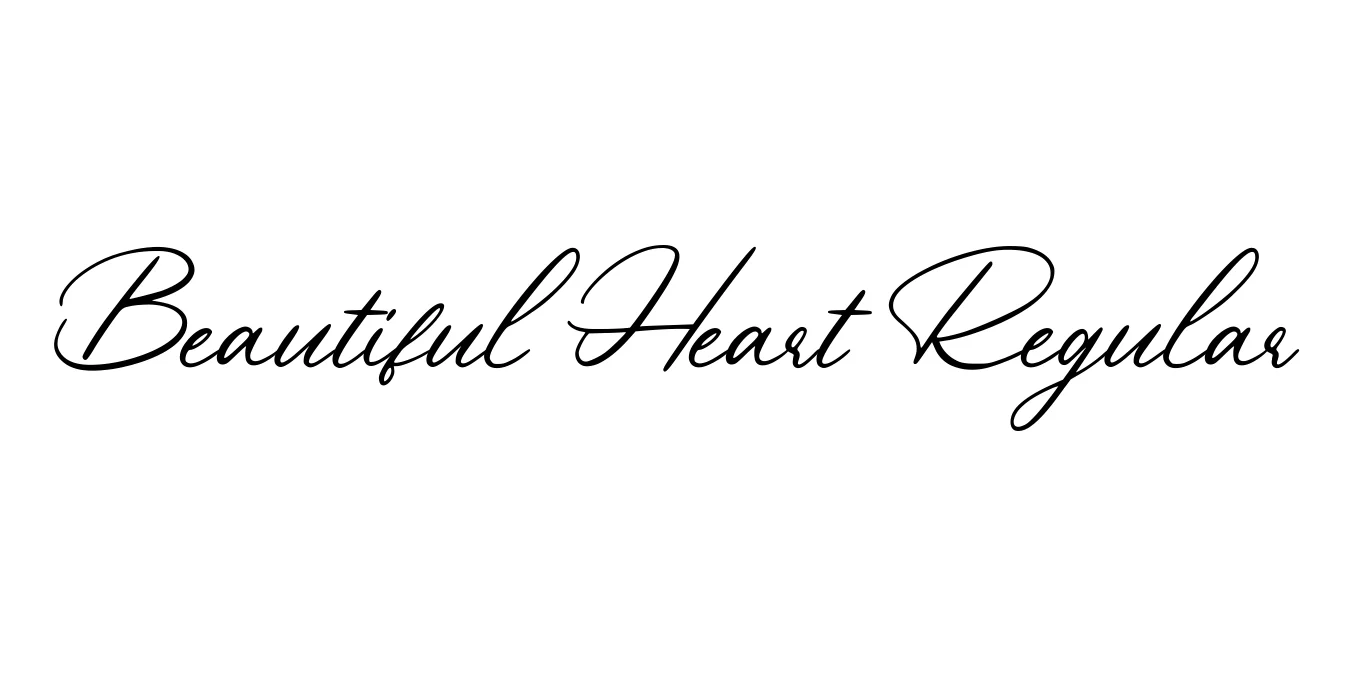
Beautiful Heart Regular
Beautiful Heart Regular is an exquisite and delicate script font designed to convey elegance and sophistication. Created by Letterena Studios, this font features flowing lines and graceful curves that mimic high-end calligraphy. It was developed to meet the needs of designers looking for a romantic yet legible typeface that adds a personal touch to digital and print media projects.
Since its release, it has become a popular choice for luxury branding and event stationery. The font's rhythmic balance between its uppercase and lowercase characters ensures a seamless flow, making it ideal for everything from high-fashion magazine layouts to intimate wedding invitations. Its versatility and timeless appeal continue to make it a staple in modern creative toolkits.
Beautiful Heart Regular Best Uses
Perfect for invitations, save-the-dates, and place cards.
Ideal for luxury logos and signature-style brand identities.
Great for creating inspiring quotes and elegant Instagram posts.
Adds a heartfelt, personal touch to holiday and birthday cards.